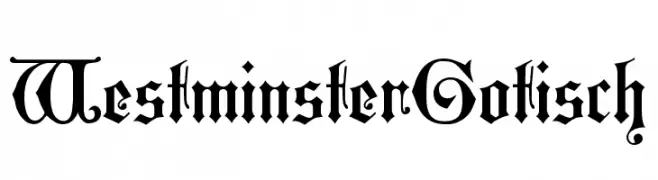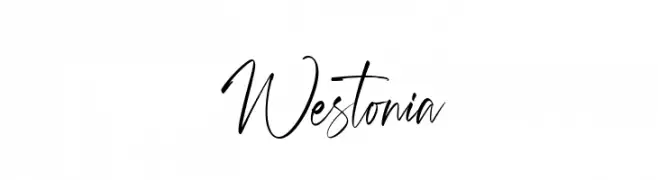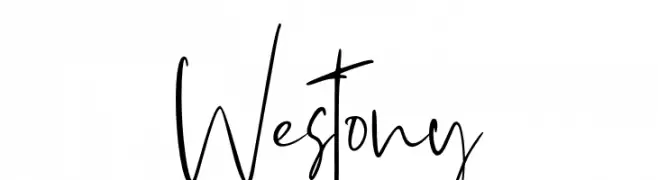
A modern, cursive font with a handwritten, elegant style.
A classic Gothic font with intricate, sharp edges and ornate flourishes.
A classic blackletter font with ornate, intricate letterforms.
A modern, bold font with rounded edges and geometric structure.
A modern, geometric font with thin lines and balanced spacing.
An elegant, flowing script font with a handwritten style.
A dynamic handwritten font with fluid, cursive strokes and artistic flair.